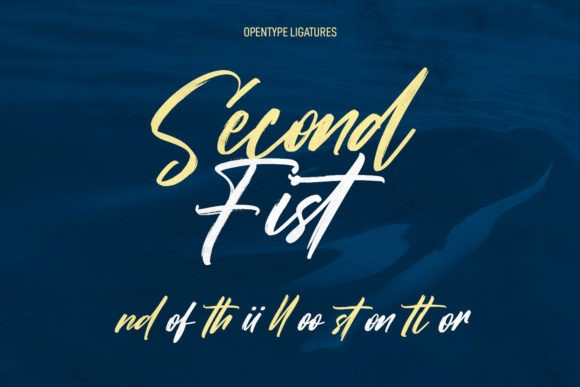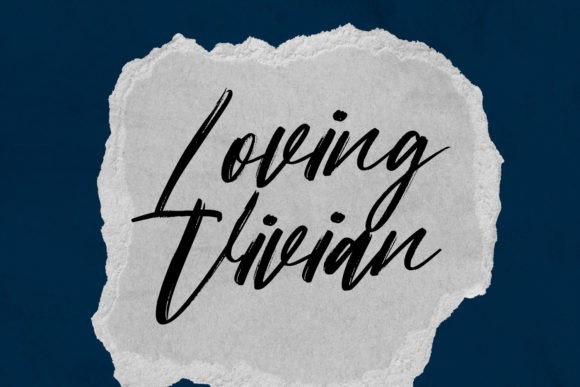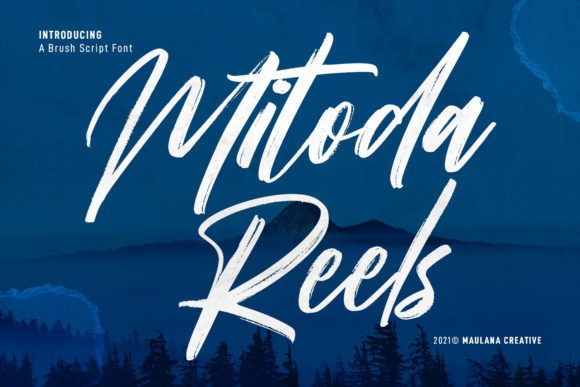
Mitoda Reels Font
Mitoda Reels Font is a flowing and brushed handwritten font, described by an elegant touch. Fall in love with its incredibly distinct and timeless style and use it to create spectacular designs!